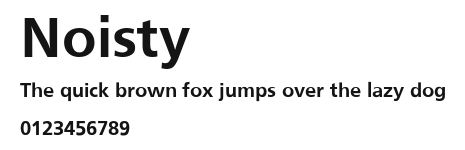
Noisty Preview
• Font Name: Noisty
• Full Font Name: Noisty
• PostScript Name: Noisty
About Noisty.ttf
Noisty.ttf is a modern, elegant sans-serif font designed for ultimate readability and visual harmony. Perfect for branding, headlines, web design, and print materials.